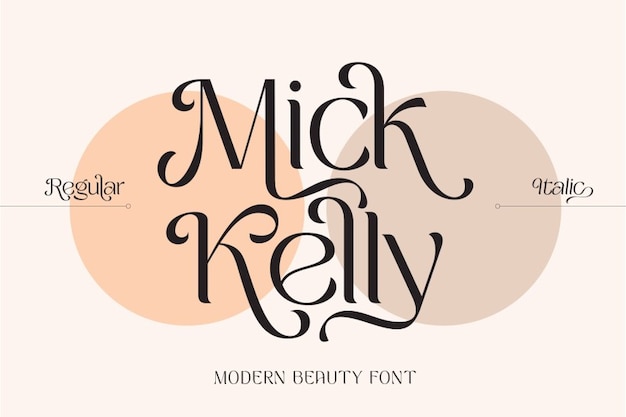
Mick Kelly
Mick Kelly Font
It is a font that effortlessly marries modern elegance with timeless beauty. Its sleek lines and graceful curves capture a classic essence while remaining relevant to contemporary design. This font is the embodiment of sophistication, making it the ideal choice for projects that demand a touch of timeless class. Whether you're designing invitations, branding, or any other creative endeavor, "Mick Kelly" brings an aura of sophistication to the forefront, making your work shine with enduring beauty.